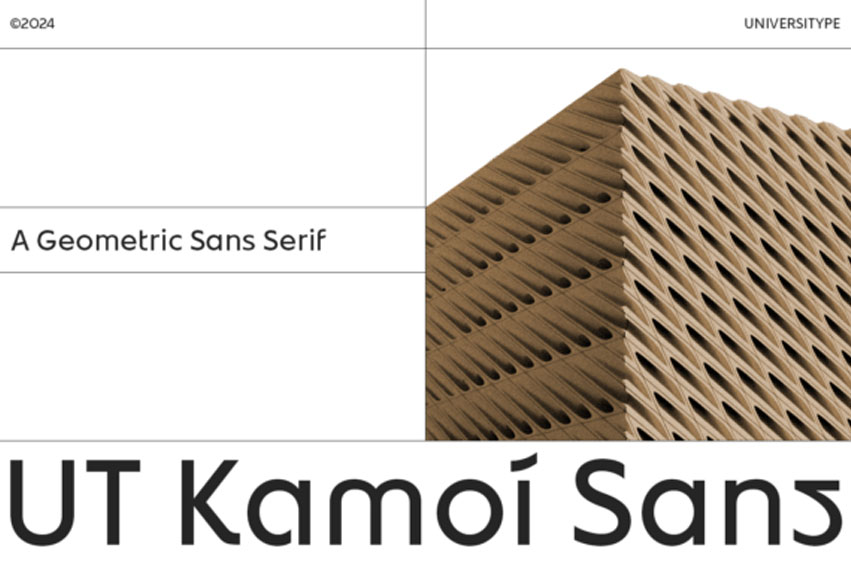
Kamoi Sans Font Unleashing the perfect union of traditional artistry and precision, UT Kamoi Sans lavishes any design with a unique blend of modern aesthetics and profound Japanese cultural heritage.
This geometric sans serif font elegantly marries the sleek elegance in the fluid forms of Hiragana and Katakana scripts with the flawless symmetry emblematic of architectural floor plans. The resulting harmony offers a typeface steeped in sophistication and versatility, making it a preferred pick for aesthetics-sensitive professionals across architecture, fashion, and technology realms.